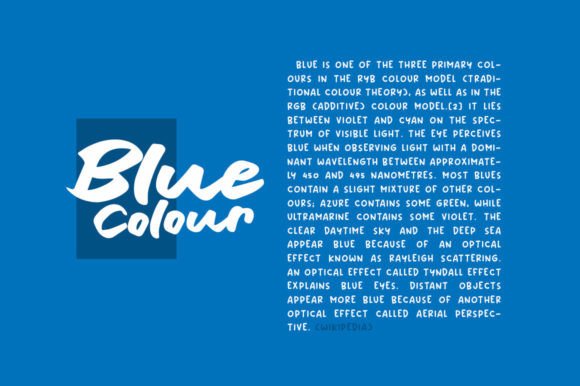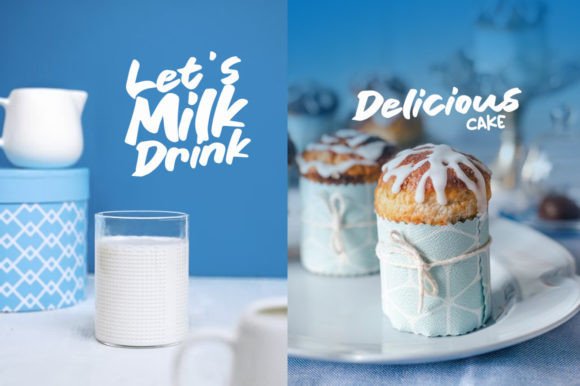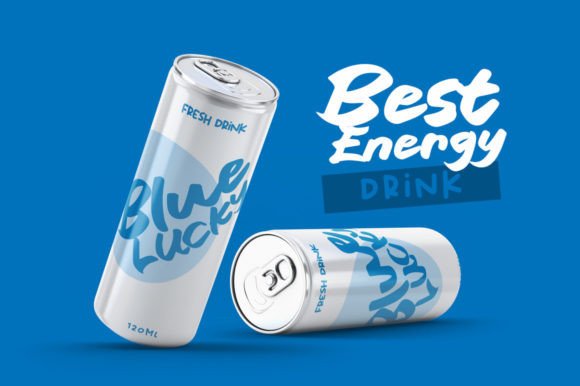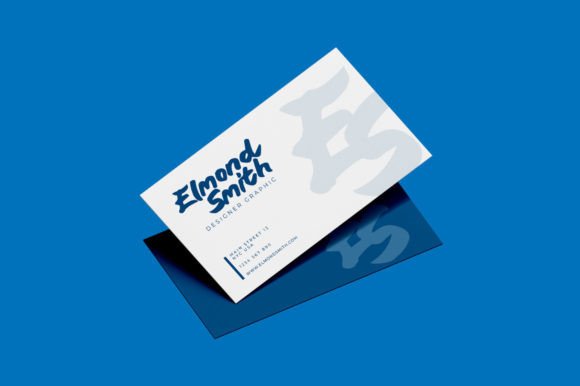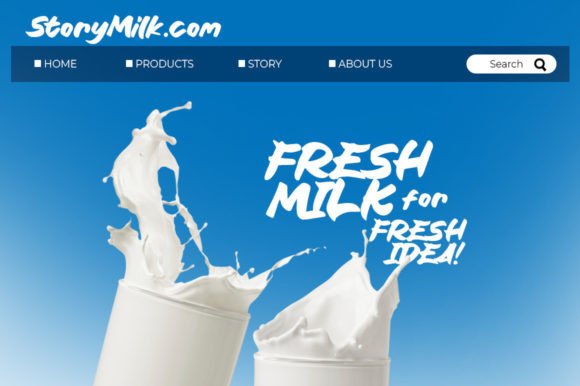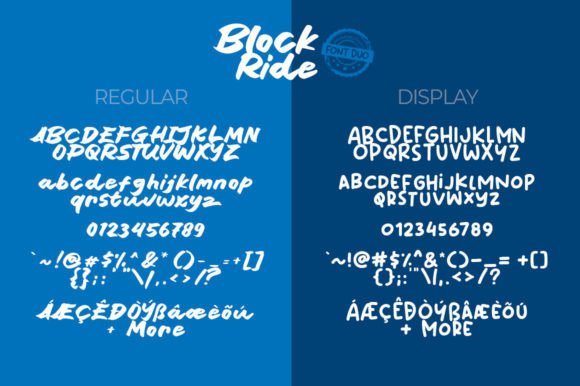
Introduction to Block Ride Duo Font
Block Ride is a fun handwritten font duo (script and display) perfect for posters, logos, magazines, book covers, banners, and many more.
Key Features of Block Ride Duo Font
Why Choose Block Ride Duo Font?
Block Ride Duo Font offers exceptional quality and versatility, making it a valuable addition to your design toolkit. Whether you’re creating for personal projects or commercial use, Block Ride Duo Font delivers professional results.